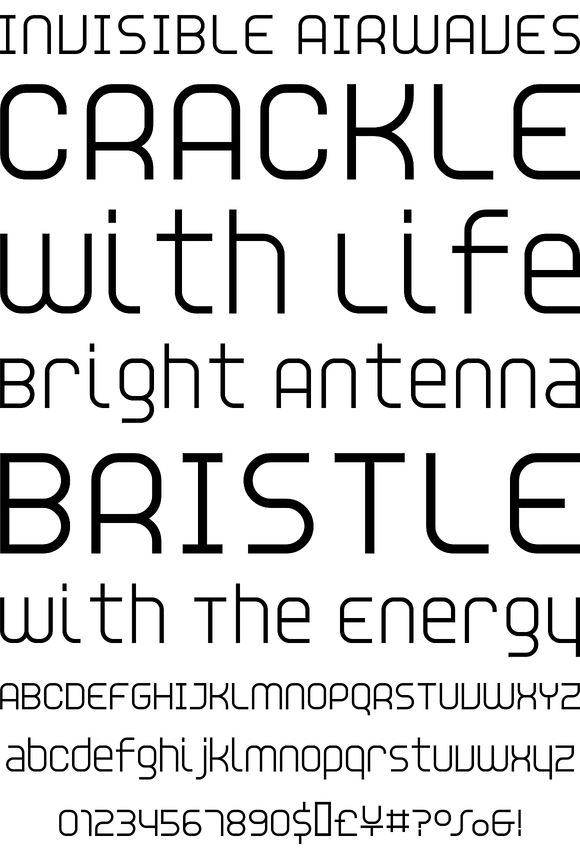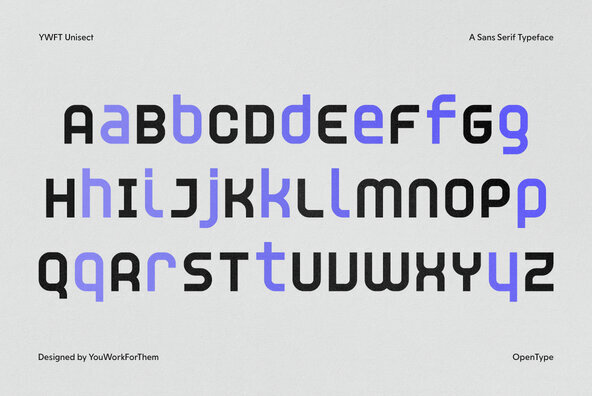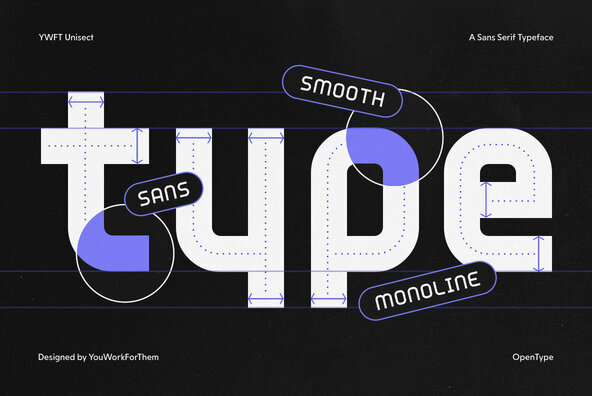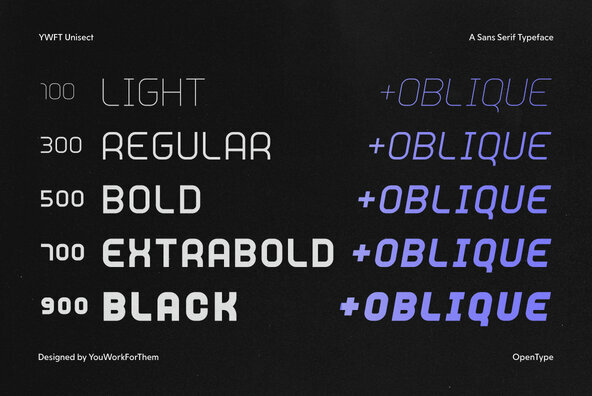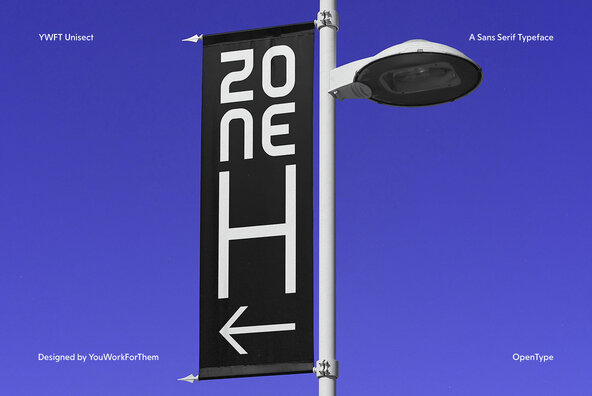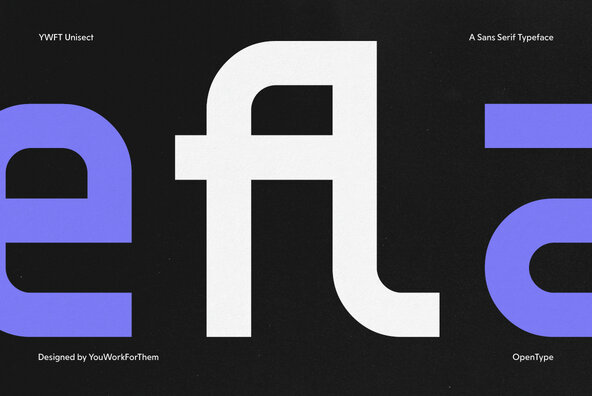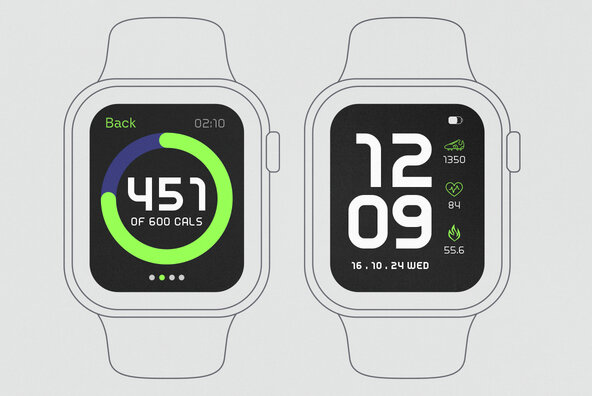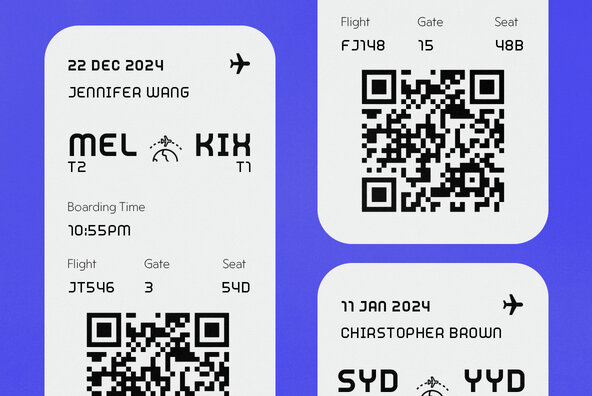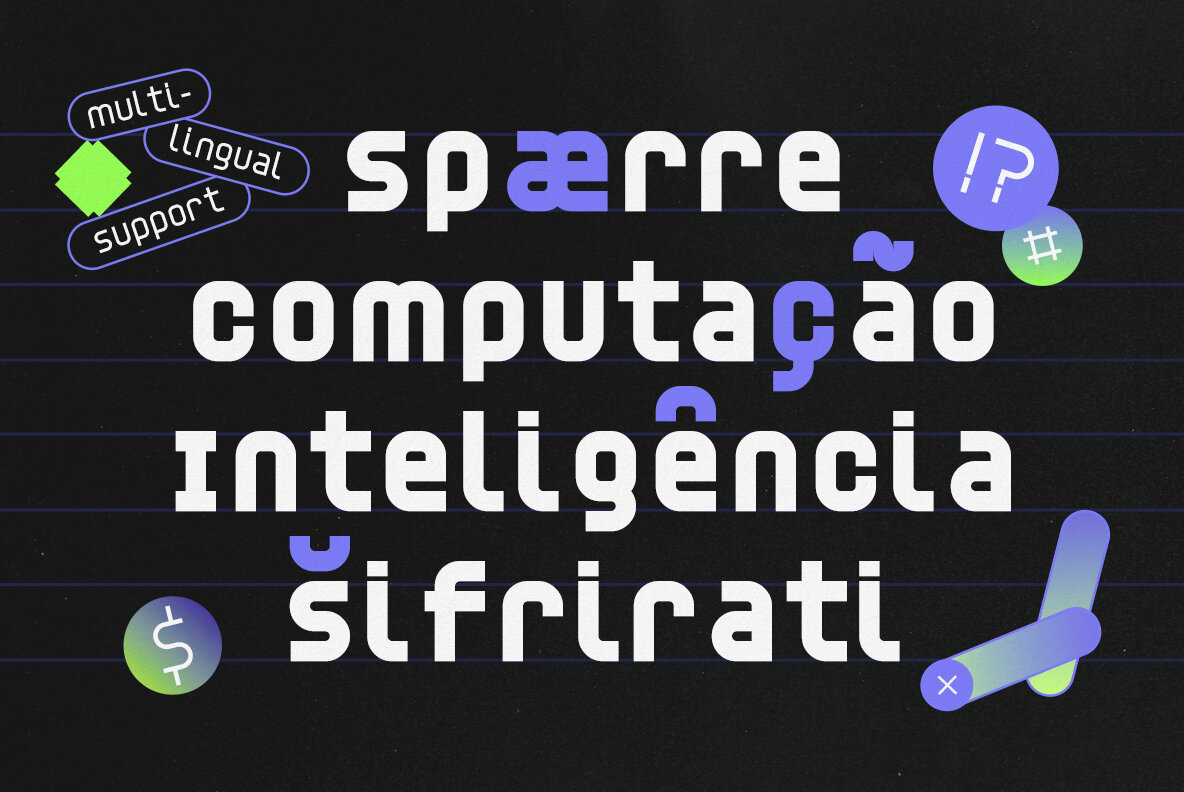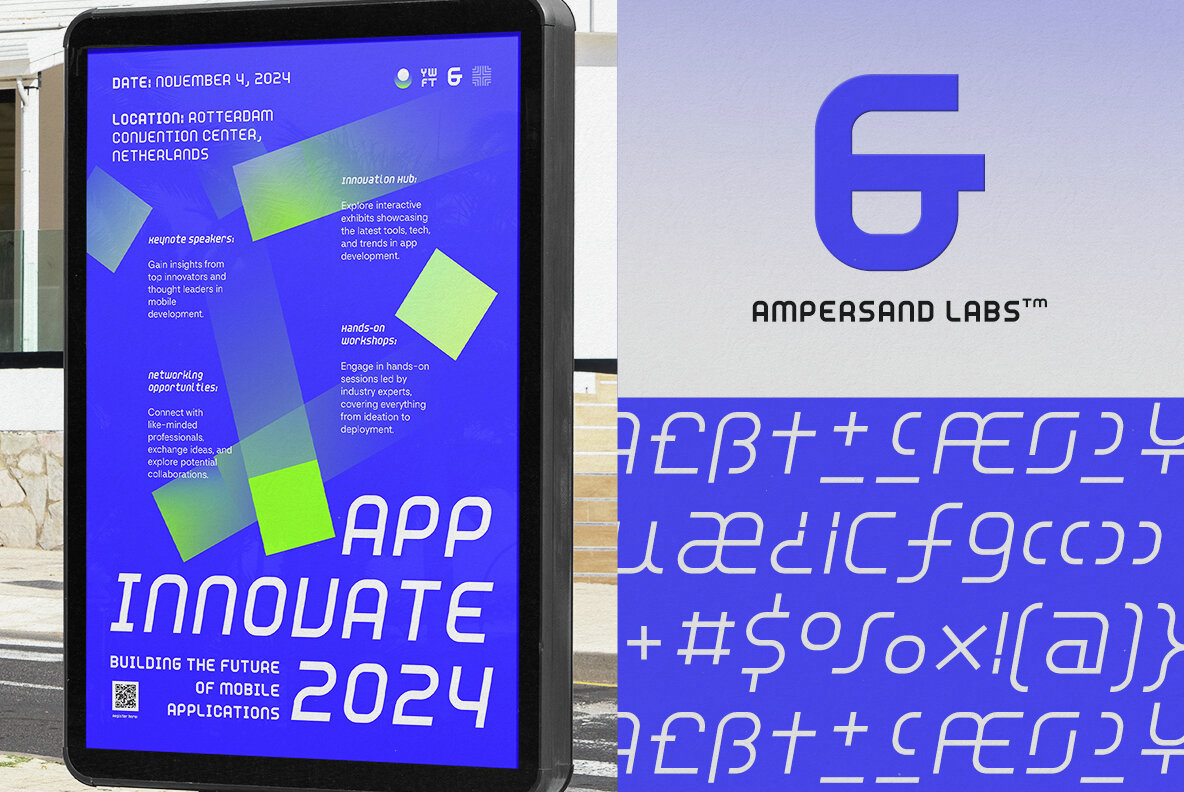
YWFT Unisect Font
Dive into the clean, geometric elegance of this typeface, designed as a minimalist counterpart to the well-loved triple-lined style. Characterized by its legibility across all sizes, it brings a modern, sleek aesthetic to any design. Featured in leading publications like Wired and ESPN, it showcases its versatile application perfectly, even serving as the main menu font for iOS's space shooter, Awesome Saucer. Additional products used for slideshow images:
This typeface has undergone careful conversion to ensure optimal performance and support for creative professionals. Whether you're crafting compelling editorials or dynamic app interfaces, its precise lines and balanced forms make it an exceptional choice. Pair it with tech and city-themed mockups for impactful presentations that captivate your audience with clarity and style.